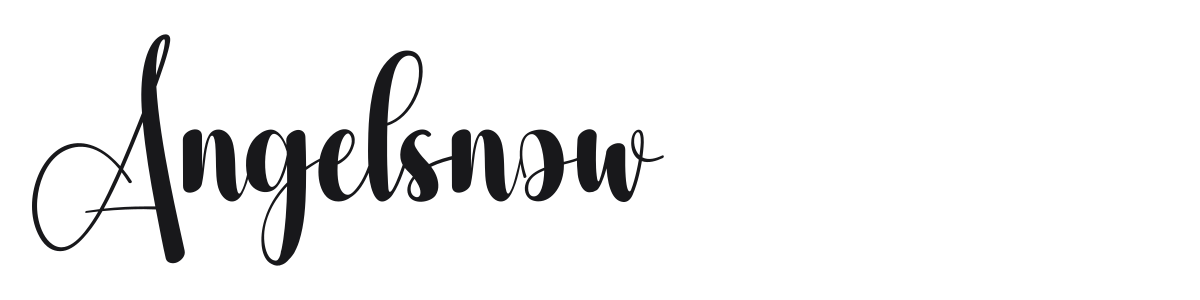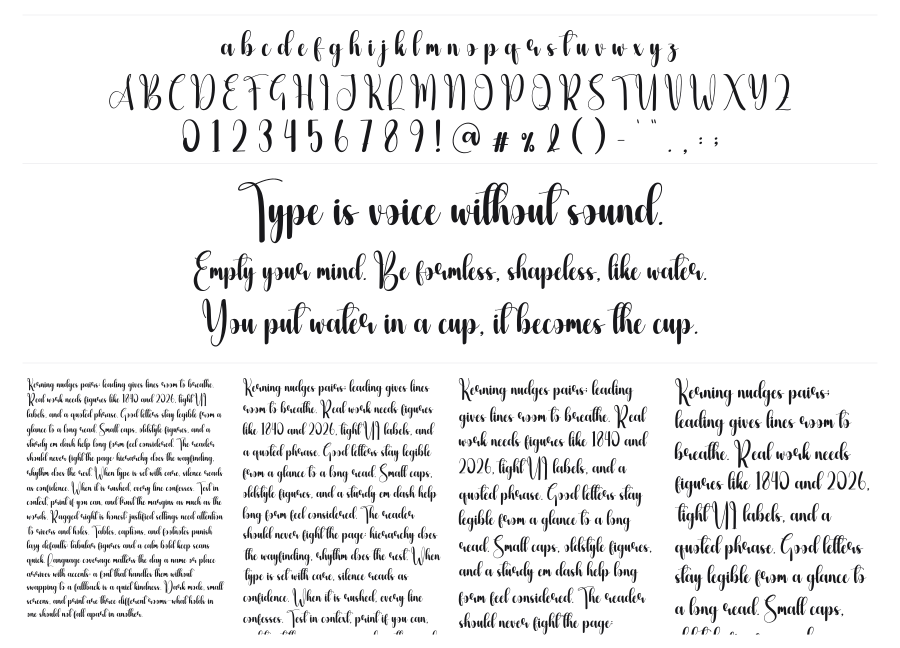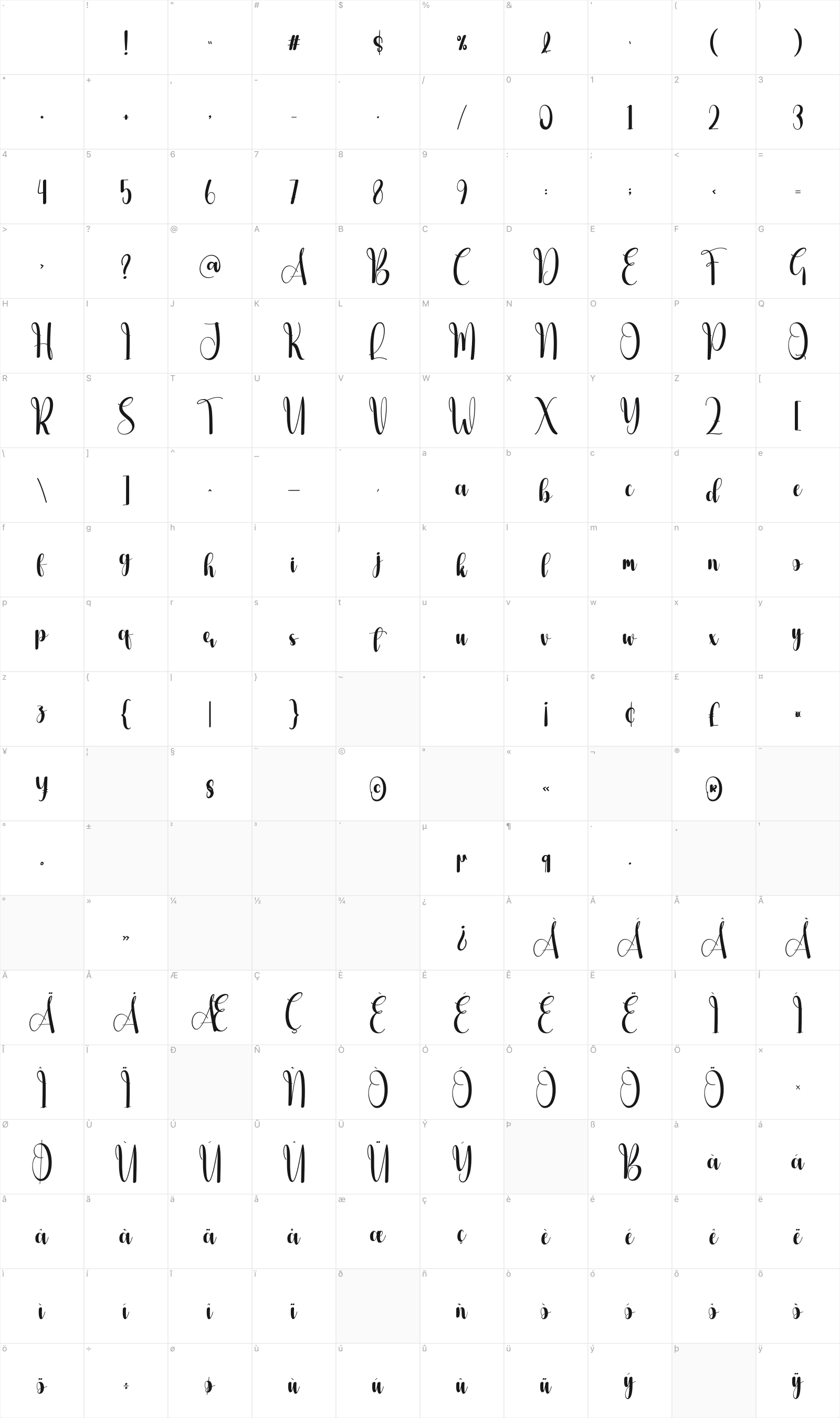
Angelsnow
Angelsnow is a bold casual script with strong calligraphic stroke contrast and expressive looping curves. Thick downstrokes and delicate hairlines give it the feel of a confident brush pen written by hand, while swash-style terminals add decorative flair. It suits wedding stationery, social media graphics, product labels, and any project calling for warm, handcrafted personality.